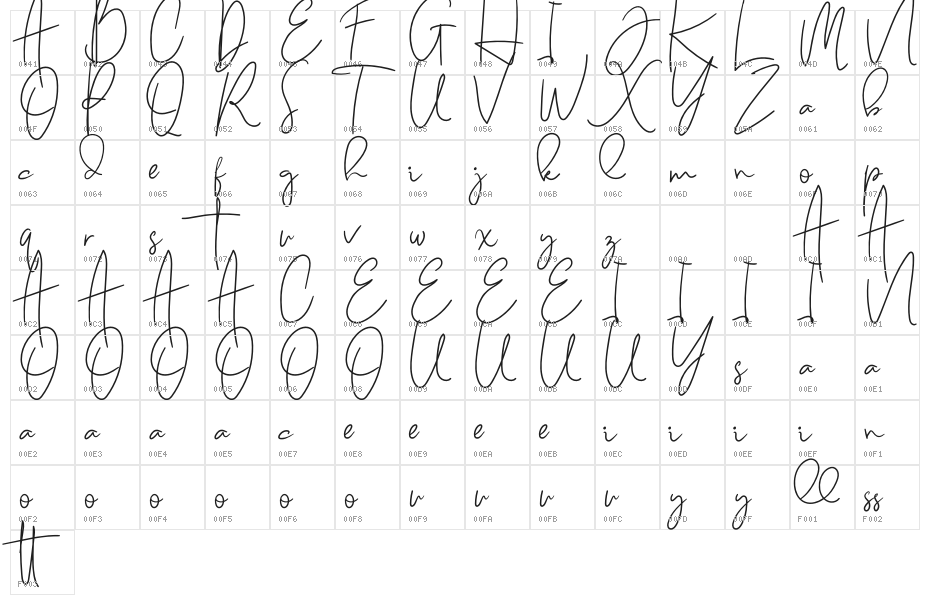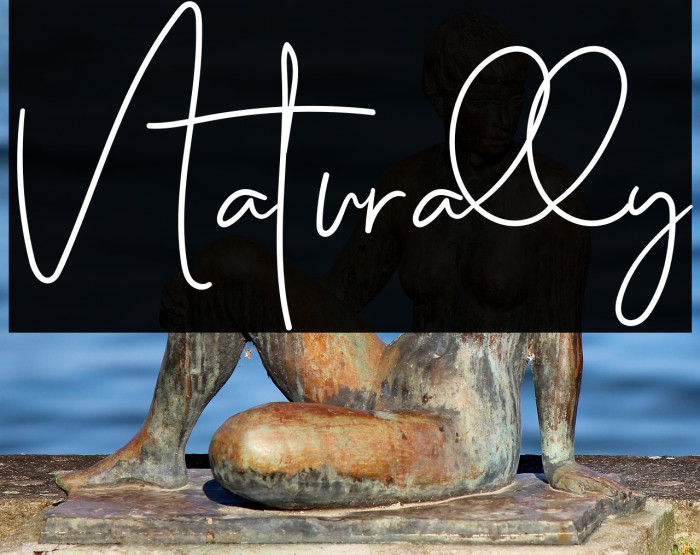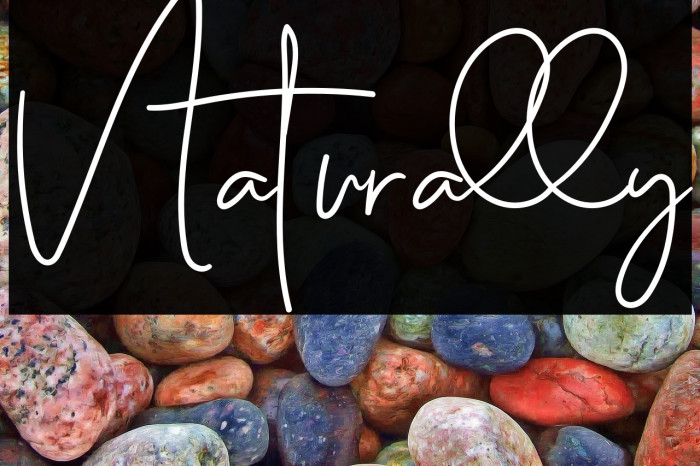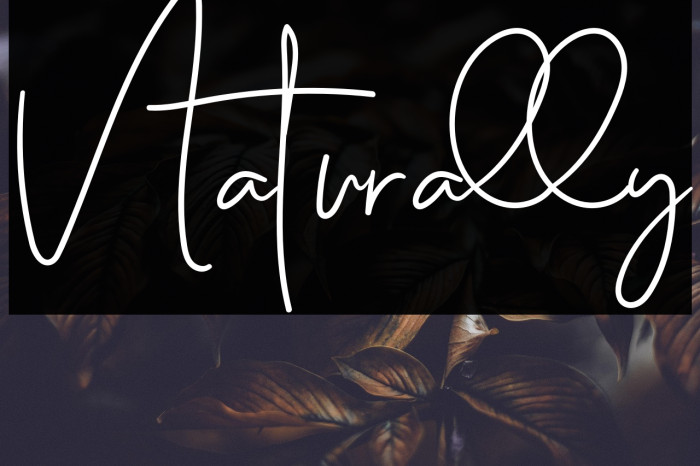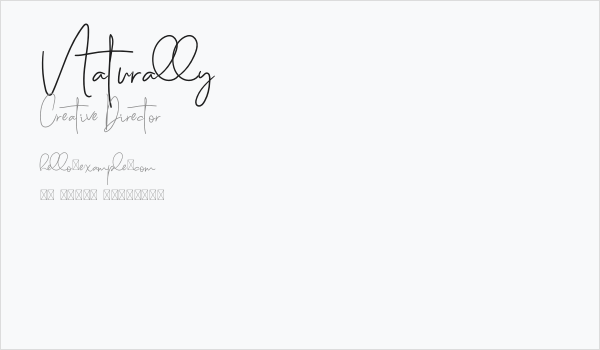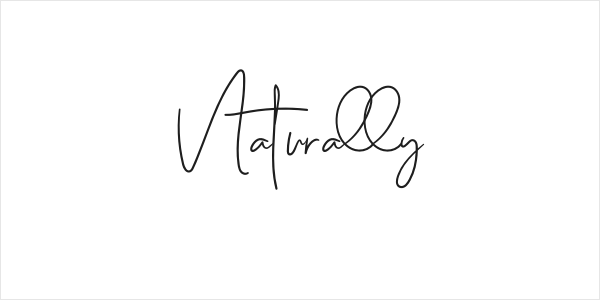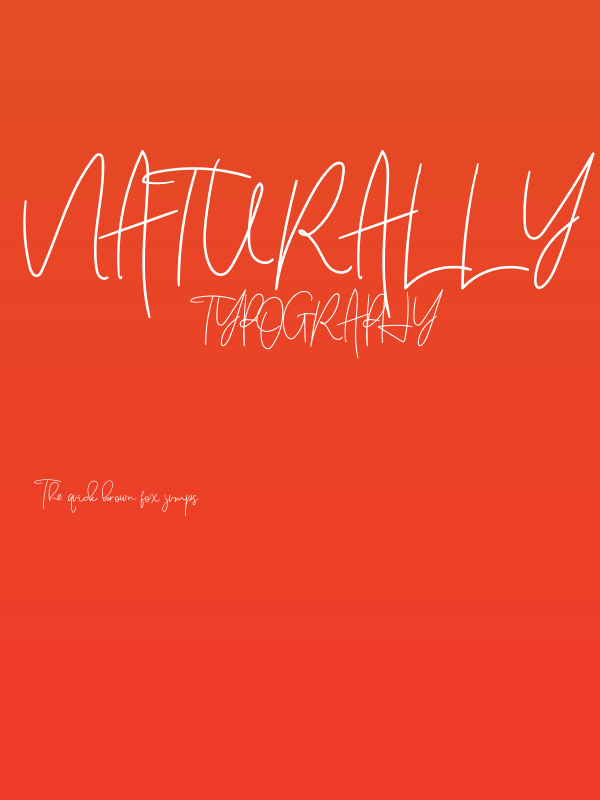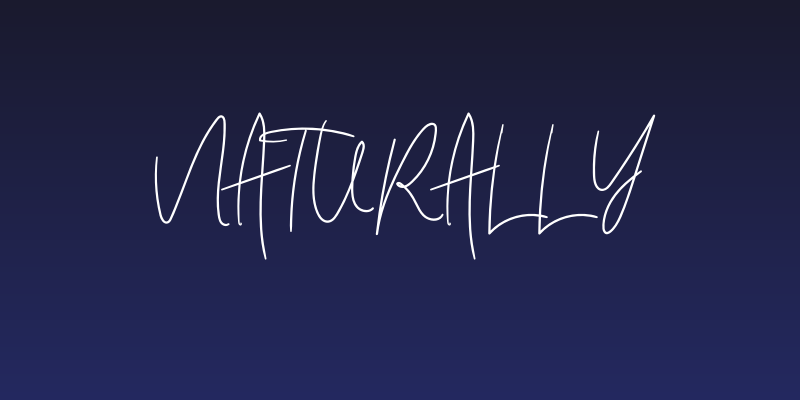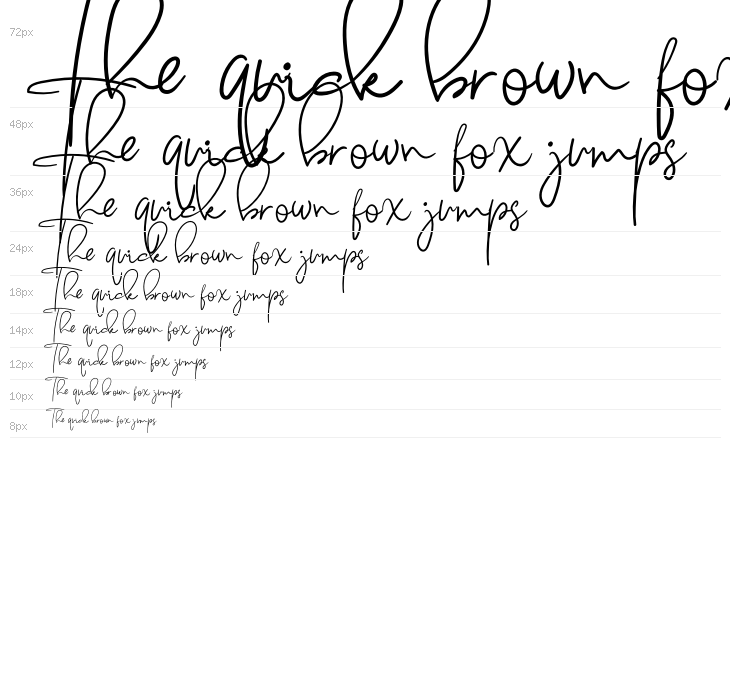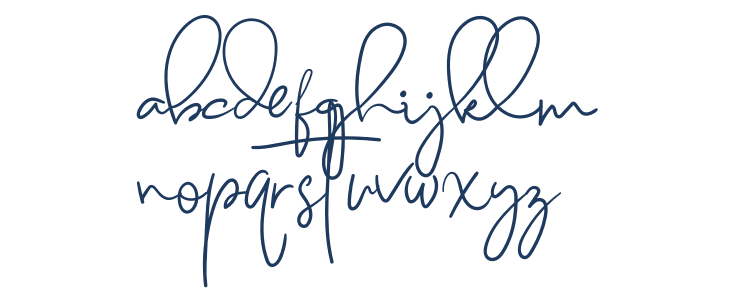
Naturally Font
Naturally Description
This font features a dynamic and fluid handwritten style, characterized by its elegant and flowing script. The uppercase letters exhibit a tall and narrow form, with smooth, continuous strokes that convey a sense of motion and grace. The lowercase letters maintain a consistent style, with loops and curves that enhance the font's organic feel. The overall appearance is both sophisticated and approachable, making it suitable for a variety of creative applications. The font's design is reminiscent of personal handwriting, offering a personal touch to any project.
| Proposed Projects | Ideal for wedding invitations, personal branding, greeting cards, and artistic projects. |